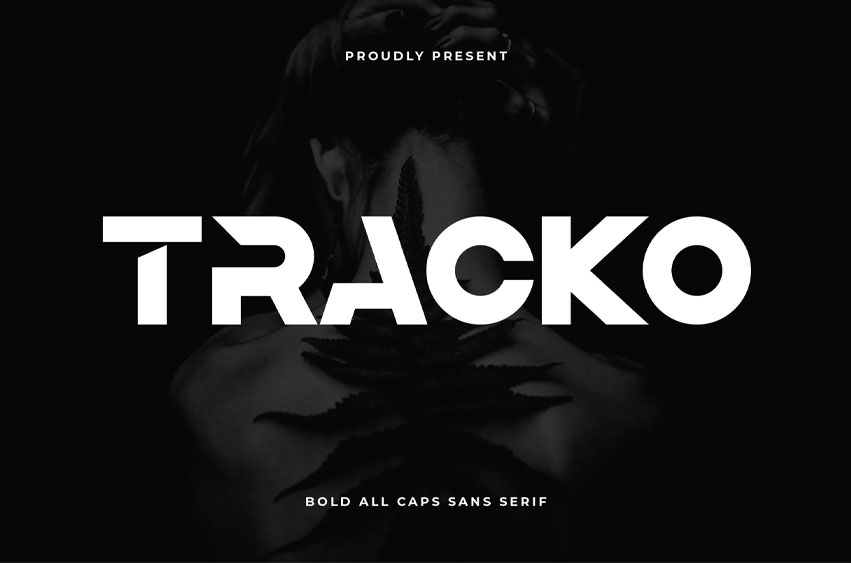
Tracko Bold Font
Tracko Bold Font is perfect for posters, social media posts, branding, personal projects, etc.
It is perfect for your upcoming projects.